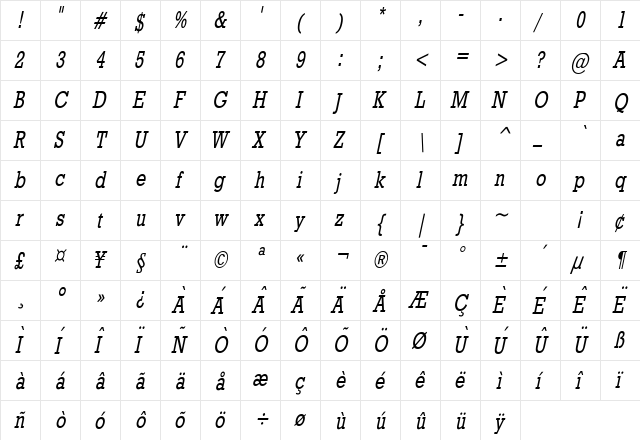
Geo 986 Thin Italic Font Preview
Geo 986 Thin Italic
Geo 986 Thin Italic Font Details
Design Context for Geo 986 Thin Typeface
Geo 986 Thin is a composed and adaptable typeface that performs quietly and consistently across a wide range of design contexts. The slanted form adds forward momentum and visual energy. Its slender proportions lend an understated elegance to any composition.